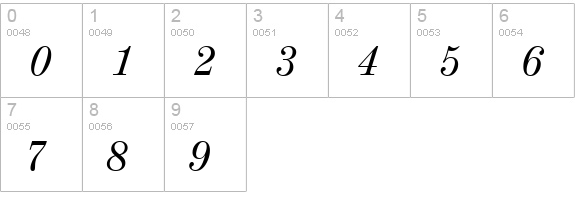
ValenciaSerial-Italic Font Details
ValenciaSerial-Italic is a distinctive, italic variant in the ValenciaSerial typeface family \xE2\x80\x94 well suited to design and typography projects.
ValenciaSerial-Italic is a stunning and elegant font that exudes sophistication and style. Its sleek curves and delicate serifs give off a sense of refinement and class, making it perfect for projects that require a touch of luxury. This italic version of the ValenciaSerial font adds a touch of flair and uniqueness to any design. The best part? ValenciaSerial-Italic is available for free download at FontsMarket.com! This means you can easily access this beautiful font for all your creative projects without any cost. Whether you're working on invitations, logos, or branding materials, ValenciaSerial-Italic is sure to make a bold statement and elevate your designs to the next level. Don't miss out on this fantastic opportunity to enhance your work with this exquisite font - download it for free today at FontsMarket.com!